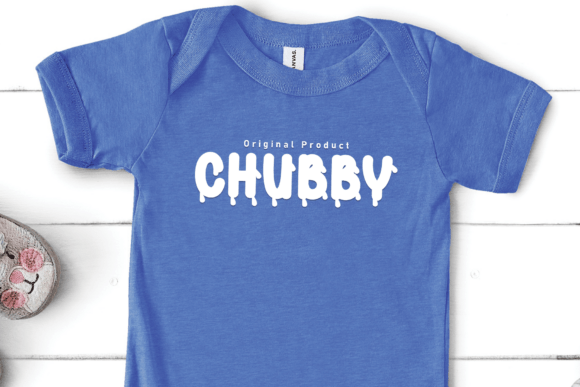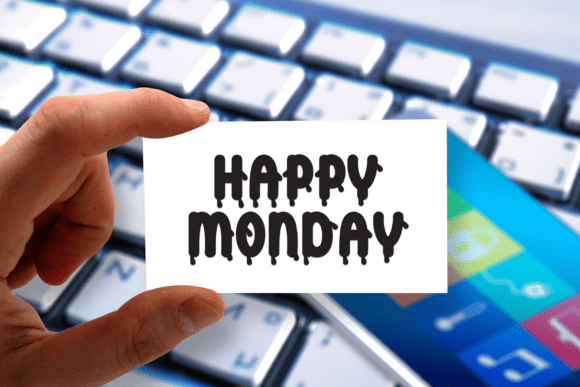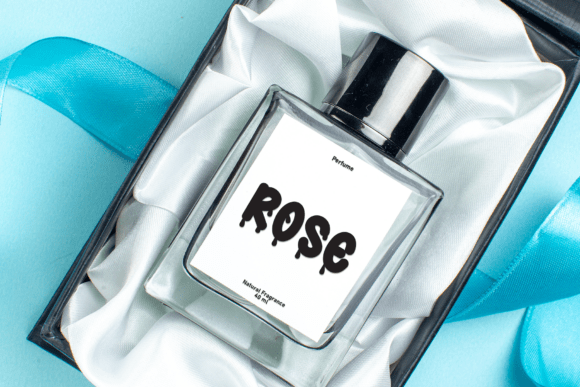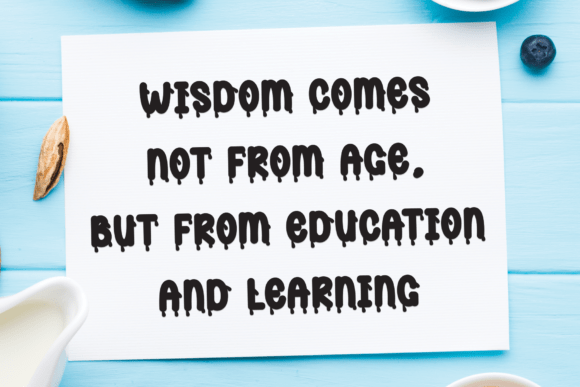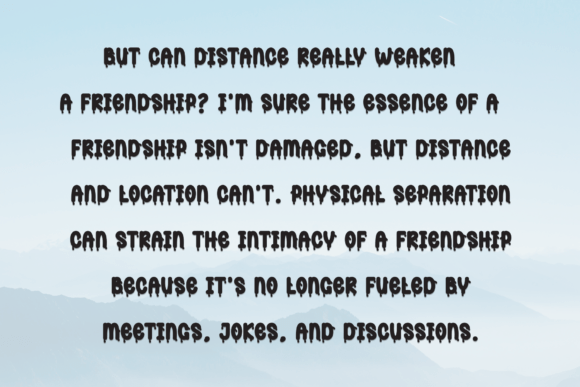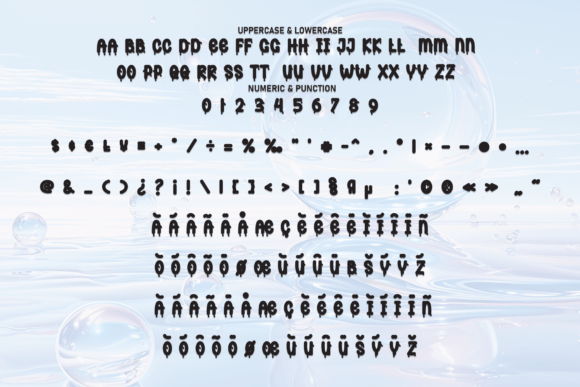
Bubble Water Font: Add a Touch of Whimsy to Your Designs
Are you looking for a font that exudes warmth, charm, and playfulness? Look no further than the Bubble Water Font! This endearing and approachable handwritten display font is perfect for designers and crafters who want to add a dash of fun to their creations. In this article, we’ll dive into the world of Bubble Water Font, exploring its features, uses, and benefits.
A Delightful Typeface
Bubble Water Font is a captivating typeface that strikes the perfect balance of whimsical and delightful. Its sweet demeanor makes it an ideal choice for crafting wedding invitations, greeting cards, or any design work that requires a touch of personality. This font is sure to capture the hearts of your audience with its playful, yet classy flair.
Key Features of Bubble Water Font
- Handwritten Display Font: Bubble Water Font is a handwritten display font that boasts a unique and charming character.
- Whimsical and Delightful: This font strikes the perfect balance of whimsical and delightful, making it perfect for designs that require a touch of fun.
- Playful yet Classy: Bubble Water Font adds a playful, yet classy flair to your artistic expressions, making it suitable for a wide range of design projects.
- Enduring and Versatile: This font is versatile and can be used for various design projects, from wedding invitations to greeting cards, and more.
Uses of Bubble Water Font
Bubble Water Font is a quintessential choice for a variety of design projects, including:
- Wedding Invitations: Add a touch of whimsy and romance to your wedding invitations with Bubble Water Font.
- Greeting Cards: Create playful and charming greeting cards for special occasions, such as birthdays, anniversaries, and holidays.
- Design Projects: Use Bubble Water Font to add a dash of fun to your design projects, such as brochures, flyers, and posters.
- Digital Art: Incorporate Bubble Water Font into your digital art, such as illustrations, graphics, and animations.
Benefits of Using Bubble Water Font
Using Bubble Water Font in your designs offers several benefits, including:
- Unique and Eye-catching: This font is sure to grab the attention of your audience with its unique and charming character.
- Emotional Connection: Bubble Water Font helps create an emotional connection with your audience, making your designs more relatable and engaging.
- Versatility: This font is versatile and can be used for a wide range of design projects, making it a valuable addition to your font collection.
- Easy to Read: Despite its playful nature, Bubble Water Font is easy to read, making it perfect for designs that require a clear and concise message.
Tips for Using Bubble Water Font
Here are some tips for using Bubble Water Font in your designs:
- Pair with Other Fonts: Pair Bubble Water Font with other fonts to create a unique and visually appealing design.
- Use for Headings: Use Bubble Water Font for headings and titles to add a touch of whimsy and personality to your designs.
- Keep it Simple: Keep your design simple and clean to ensure that the font remains the focal point.
In conclusion, Bubble Water Font is a captivating and charming handwritten display font that is perfect for designers and crafters who want to add a touch of whimsy and personality to their creations. With its sweet demeanor, playful yet classy flair, and versatility, this font is sure to become a valuable addition to your font collection. So why not give Bubble Water Font a try and see how it can elevate your designs to the next level?